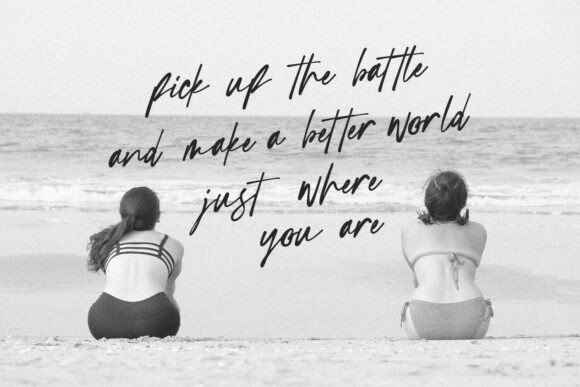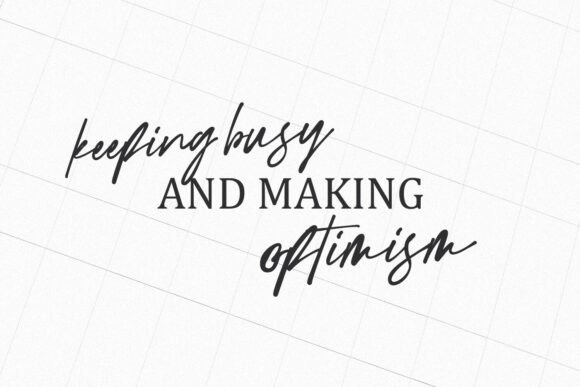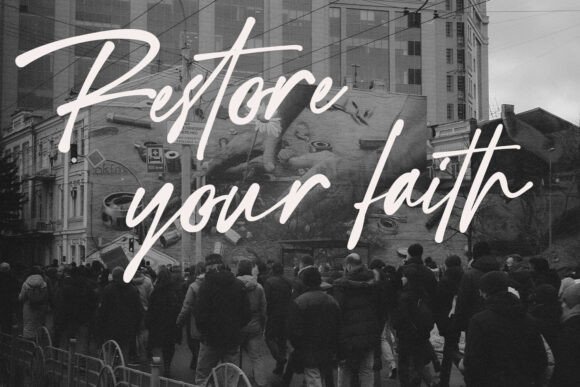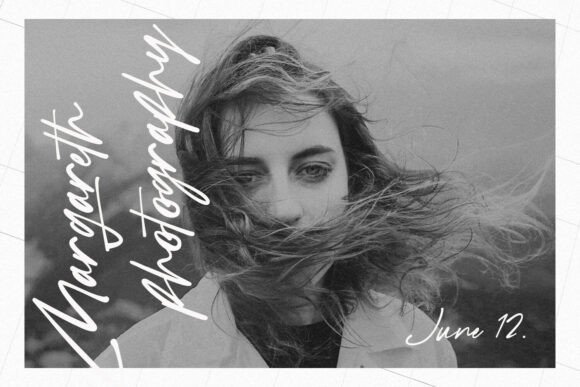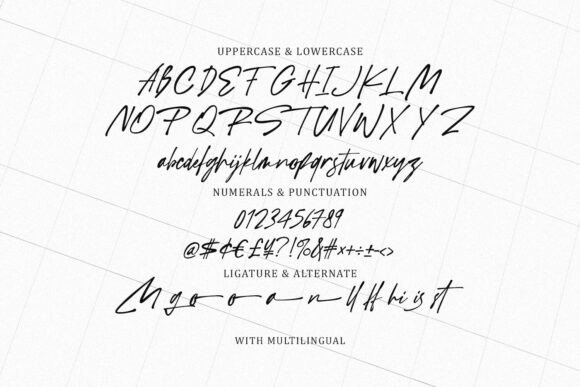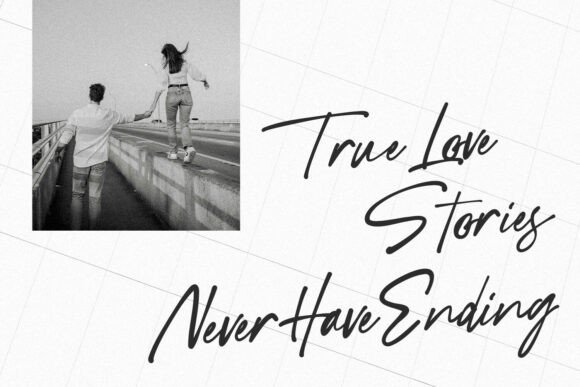
Introduction to Rageston Font
There’s something magical about the first spark of creativity – the moment when an idea ignites and you can’t wait to bring it to life. For designers, this feeling is all too familiar, and it’s precisely this sense of excitement that the Rageston Font captures with its bold, expressive handwritten script. Imagine having a design resource that embodies the raw energy and authenticity of a genuine signature, elevating your creative projects to new heights. With its dynamic flow and slightly rough edge, Rageston Font is the perfect tool for designers looking to add a touch of elegance and individuality to their work.
Whether you’re working on a logo, branding project, or social media graphics, the Rageston Font is an invaluable addition to your design arsenal. Its high-quality strokes and natural connections make it an excellent choice for a wide range of applications, from product designs to quote overlays on photographs. And the best part? This amazing font is available for free download, making it an accessible design resource for creatives of all levels.
Key Features of Rageston Font
- High-quality design with a transparent background, making it ideal for creative projects and design resources.
- Features a unique, bold design that is perfect for adding a touch of edginess to any project.
- Includes a comprehensive character set, covering a wide range of languages and symbols.
- Supports resolutions up to 300 DPI, ensuring crisp and clear typography in high-resolution designs.
- Comes in a single font weight, ideal for creating a consistent and striking visual identity.
- Perfect for use in graphic design, digital art, and other creative projects where a bold, eye-catching font is required.
Honest Review: Rageston Font
I recently stumbled upon the Rageston Font and was excited to try it out for a creative project. Upon downloading, I was pleased to find that it’s a high-quality font with a transparent background, making it easy to integrate into my design.
Here are some things that work well with the Rageston Font:
- ✨ Versatile design that’s suitable for a wide range of creative projects
- ✨ High-quality vector format for crisp and clear typography
- ✨ Transparent background makes it easy to use on any design resource
- ⚠️ Limited character set, which may not be ideal for longer texts
Overall, the Rageston Font is a great free download for personal or non-commercial projects. It’s a fantastic design resource for anyone looking to add a unique touch to their creative project. While it has some limitations, I still find it a valuable addition to my design toolkit.
Tips for Getting the Most Out of Rageston Font
Experiment with different font sizes, colors, and combinations to create unique and visually appealing designs. Use the font with a transparent background to add depth and dimension to your designs.
The Rageston Font is ideal for creative projects such as posters, flyers, brochures, and business cards. It’s also perfect for social media graphics, presentations, and any other design that requires a high-quality and unique font.
Alternatives to Rageston Font
Great Vibes Font is a high-quality, handwritten script font that is perfect for creative projects requiring a touch of elegance and sophistication. It features a transparent background, making it easy to layer with other design elements. Great Vibes Font is ideal for wedding invitations, greeting cards, and other special occasions.
Compared to Rageston Font, Great Vibes Font has a more refined and sophisticated look, making it suitable for a wider range of design applications.
Dancing Script Font is a beautiful, cursive font that is great for adding a touch of whimsy and playfulness to your designs. It features a high-quality design and is available for free download. Dancing Script Font is perfect for creative projects such as posters, flyers, and social media graphics.
Unlike Rageston Font, Dancing Script Font has a more fluid and dynamic feel, making it ideal for designs that require a sense of movement and energy.
Carolyna Pro Font is a modern, sans-serif font that is perfect for creative projects requiring a clean and minimalist look. It features a transparent background and is available for free download. Carolyna Pro Font is ideal for business cards, resumes, and other professional documents.